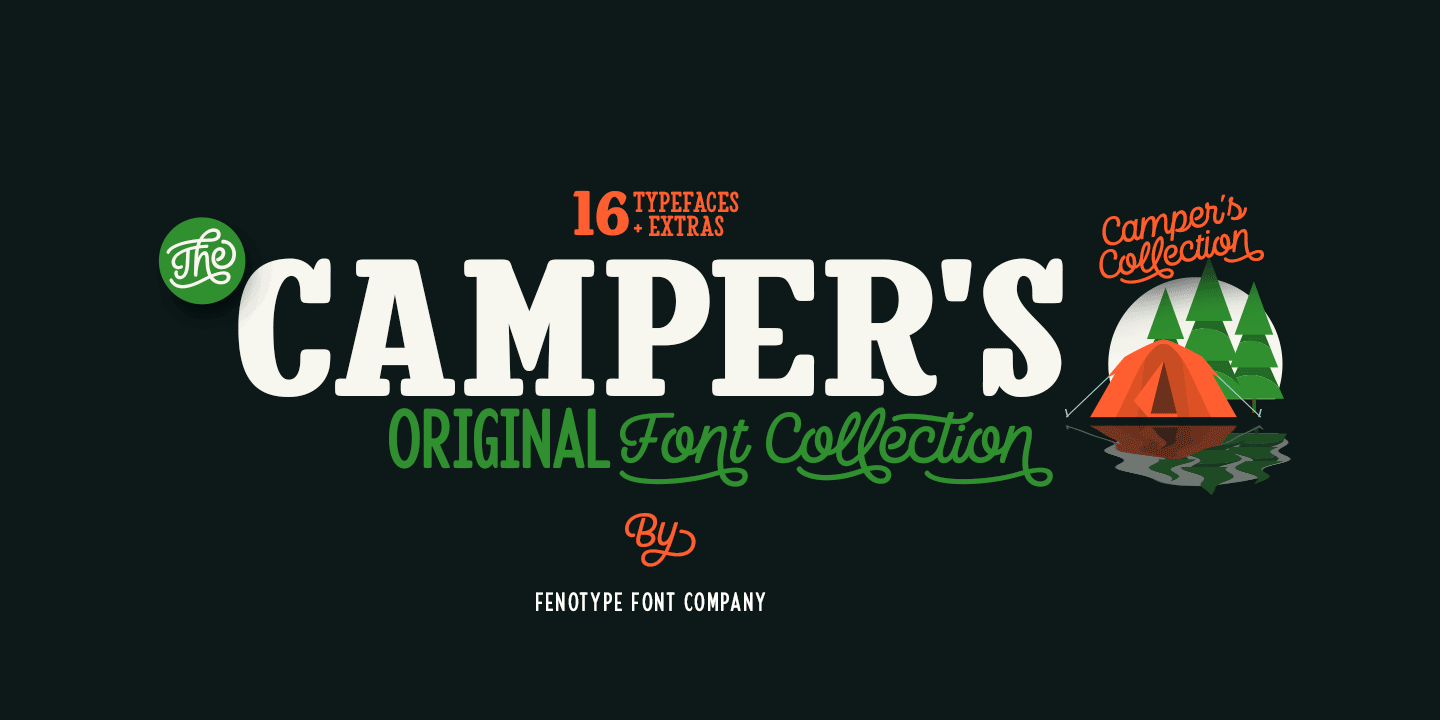
Camper Font is a fantastic choice for outdoor-themed branding, camping gear logos, travel blogs, rustic product packaging, adventure posters, and cozy apparel designs. Its hand-drawn, vintage vibe immediately sets a tone of freedom and exploration.
What makes Camper Font Free Download so exciting is its warm, woodsy aesthetic that brings to mind forest trails, mountain views, and road trip memories. The lettering has a hand-crafted charm that feels authentic and approachable—perfect for brands with heart and soul.
The Camper font family includes styles like Camper Regular, Camper Rough, and Camper Shadow. These variations allow for flexibility in both bold headlines and textured, layered effects that really capture that handcrafted outdoor spirit.